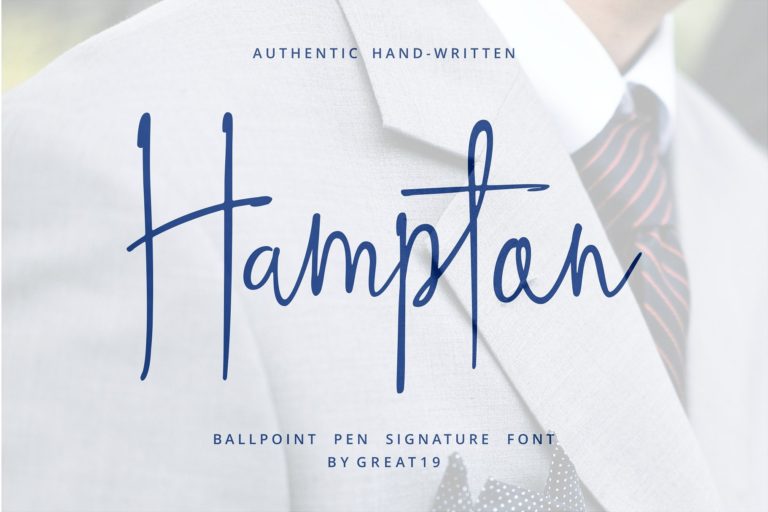
Hampton Handwriting Font
A ballpoint pen signature font by great19. Introducing Hampton Font. Hampton is a hand-written signature font, it was made using a 1.0 mm ballpoint pen to get the authentic of its stroke and carefully converted to a font. sophisticated, authentic, unique, high-end, and fancy are the perfect words to describe this signature font.